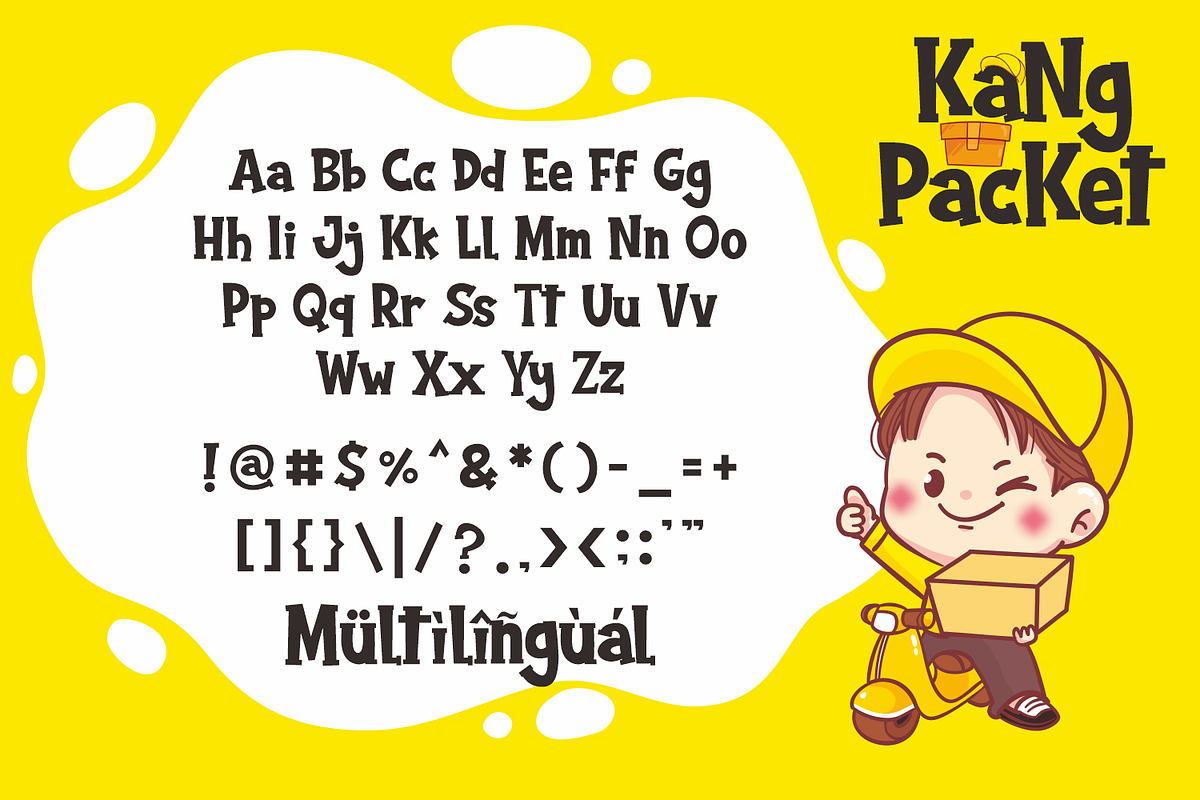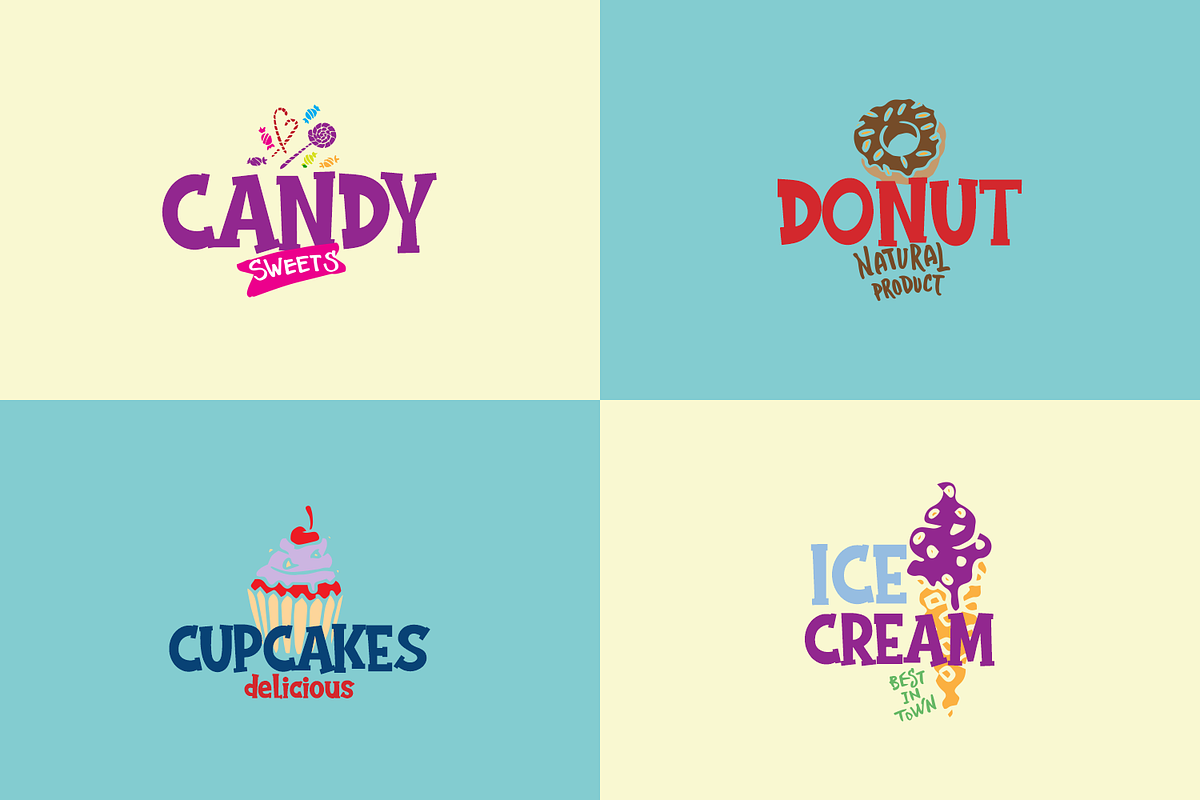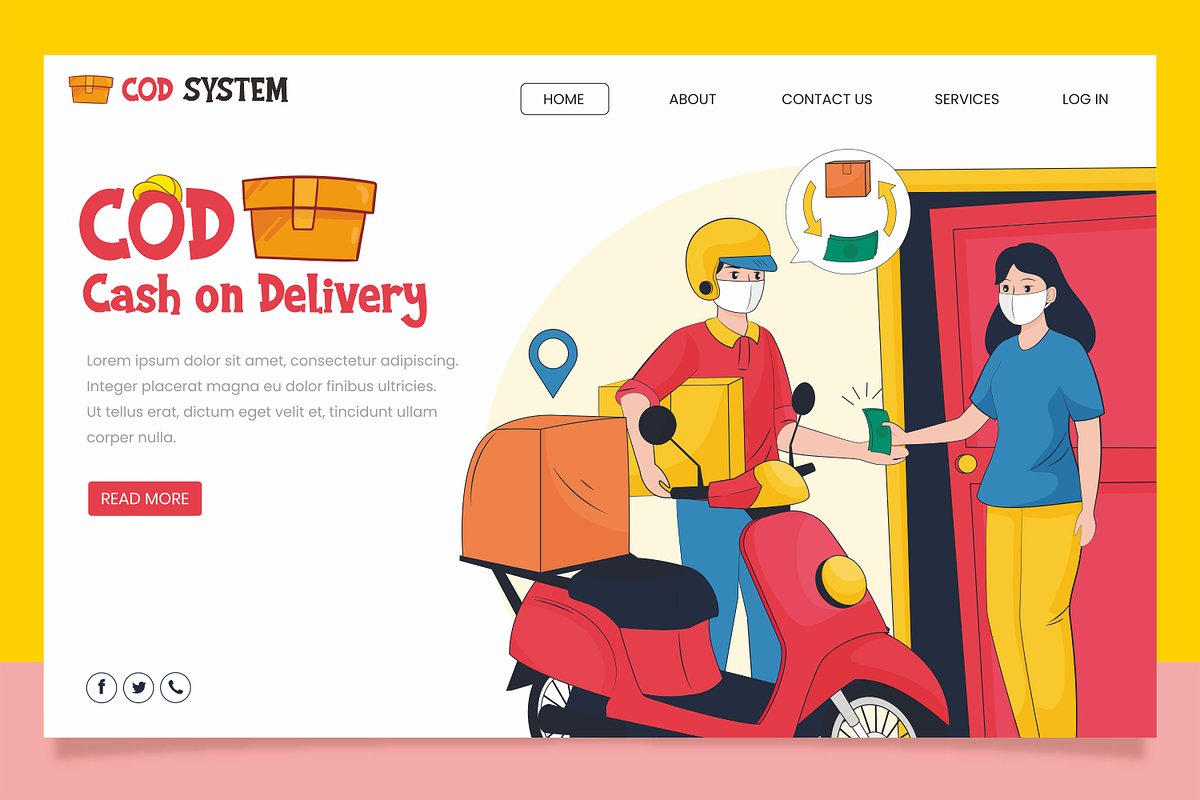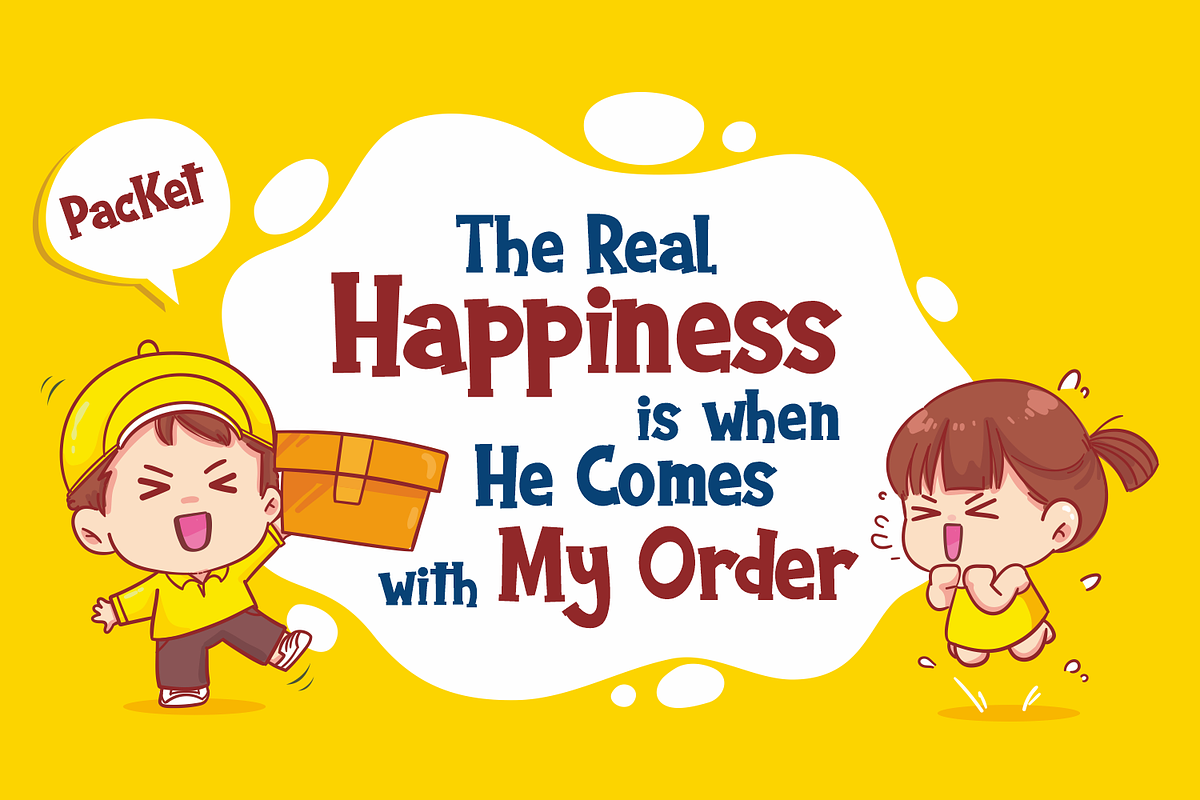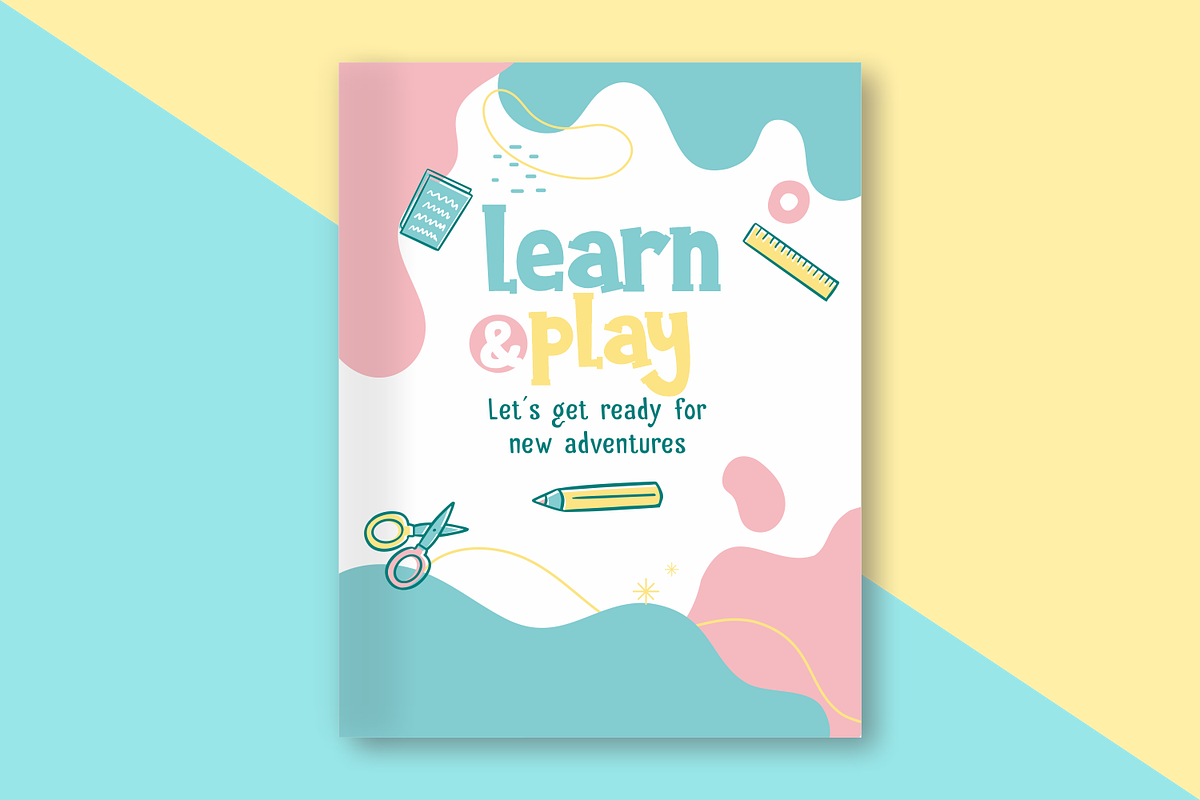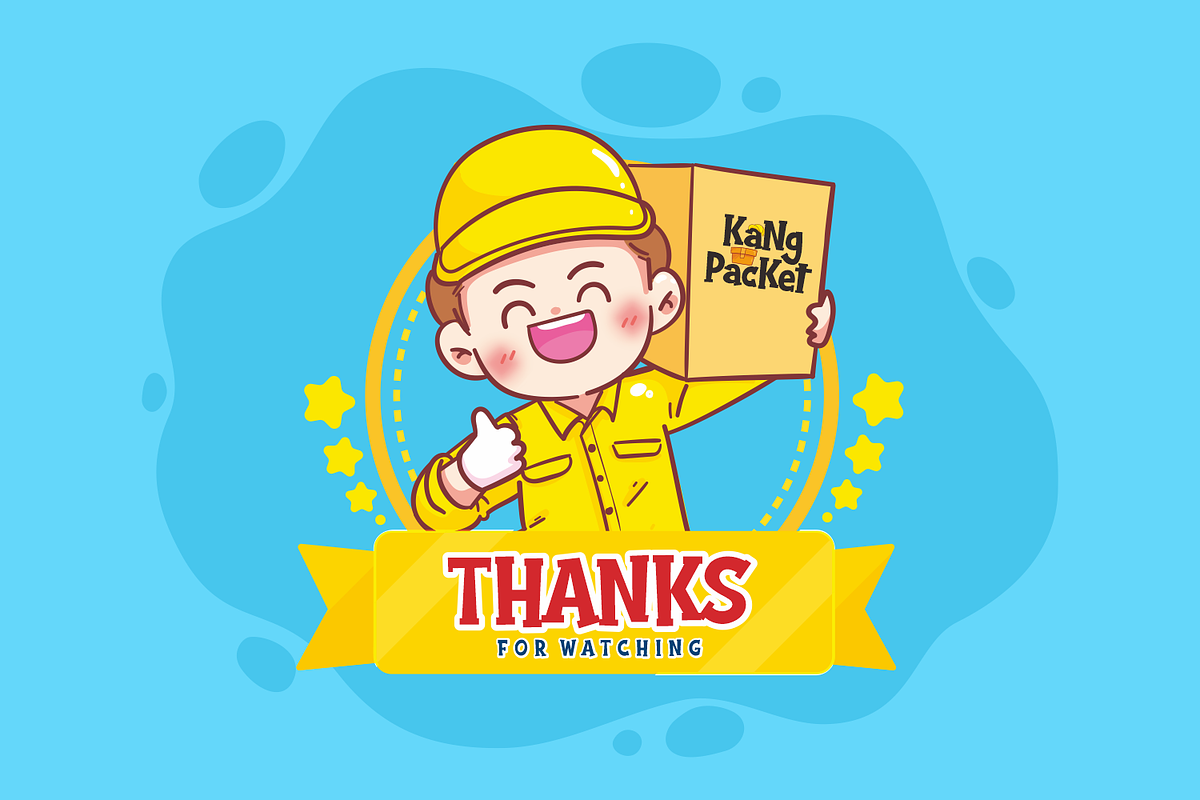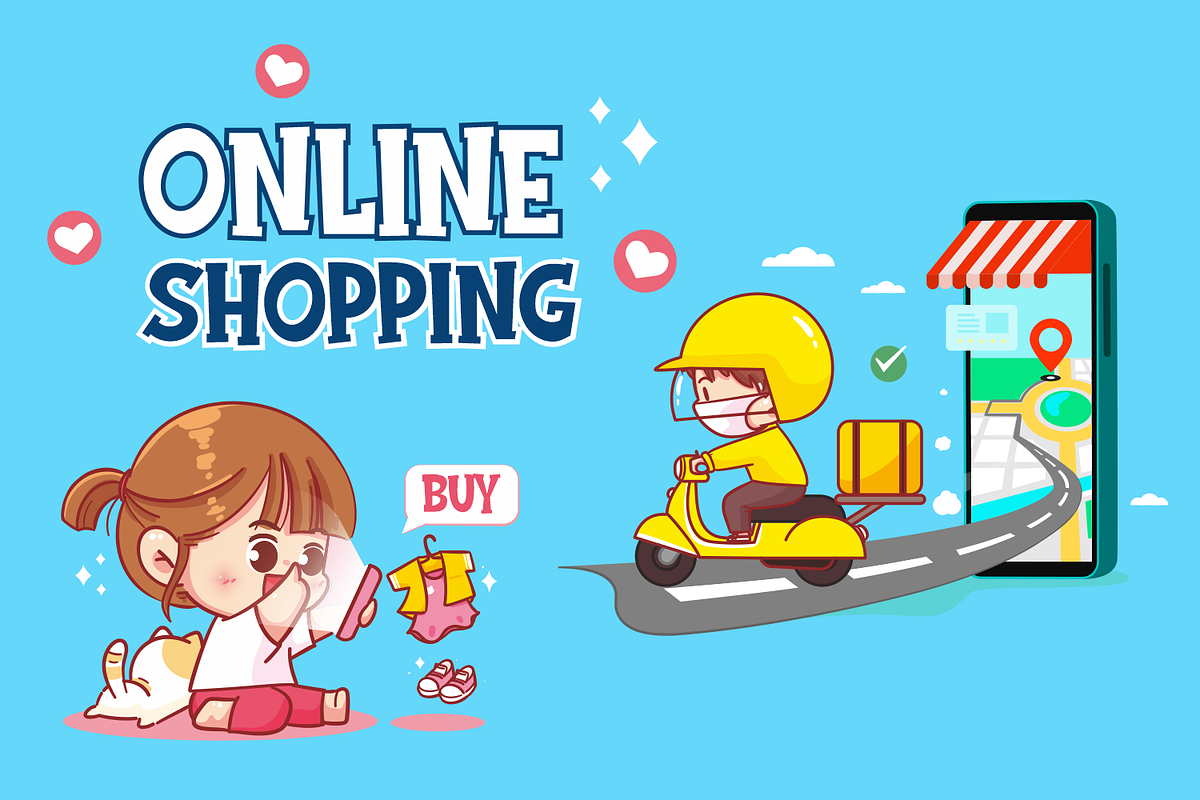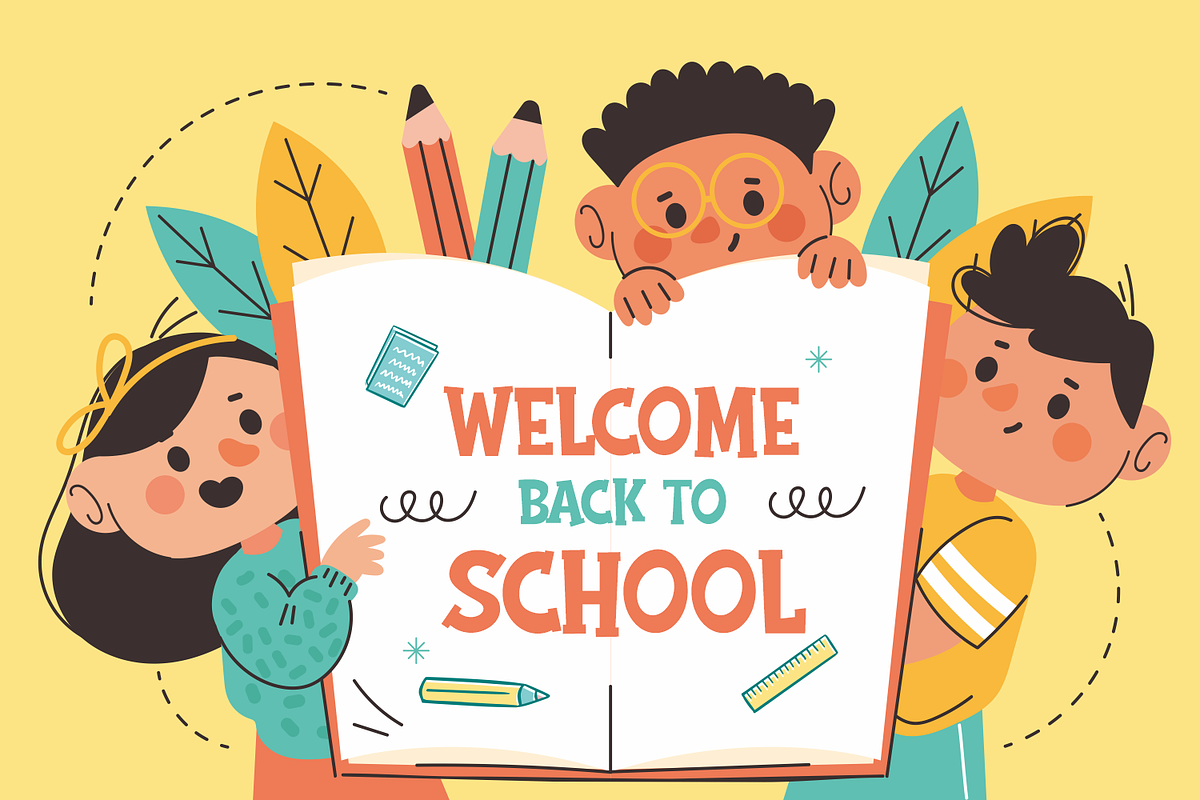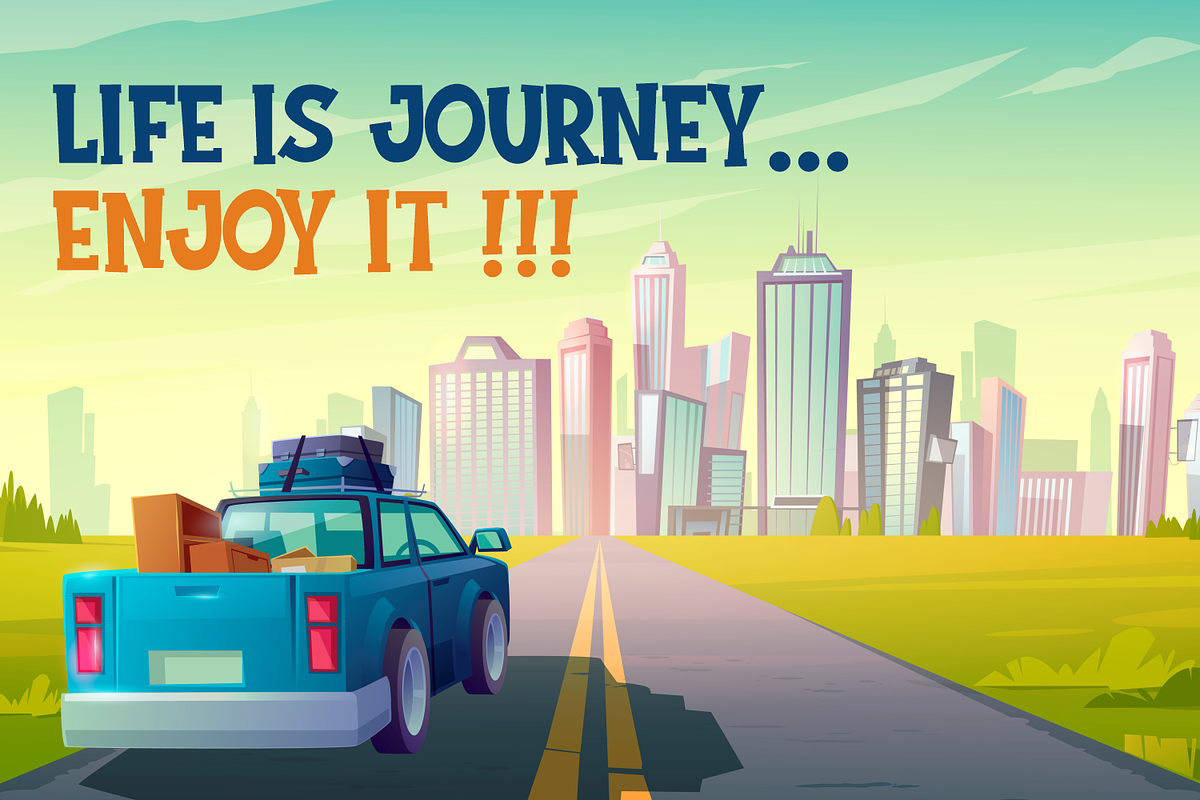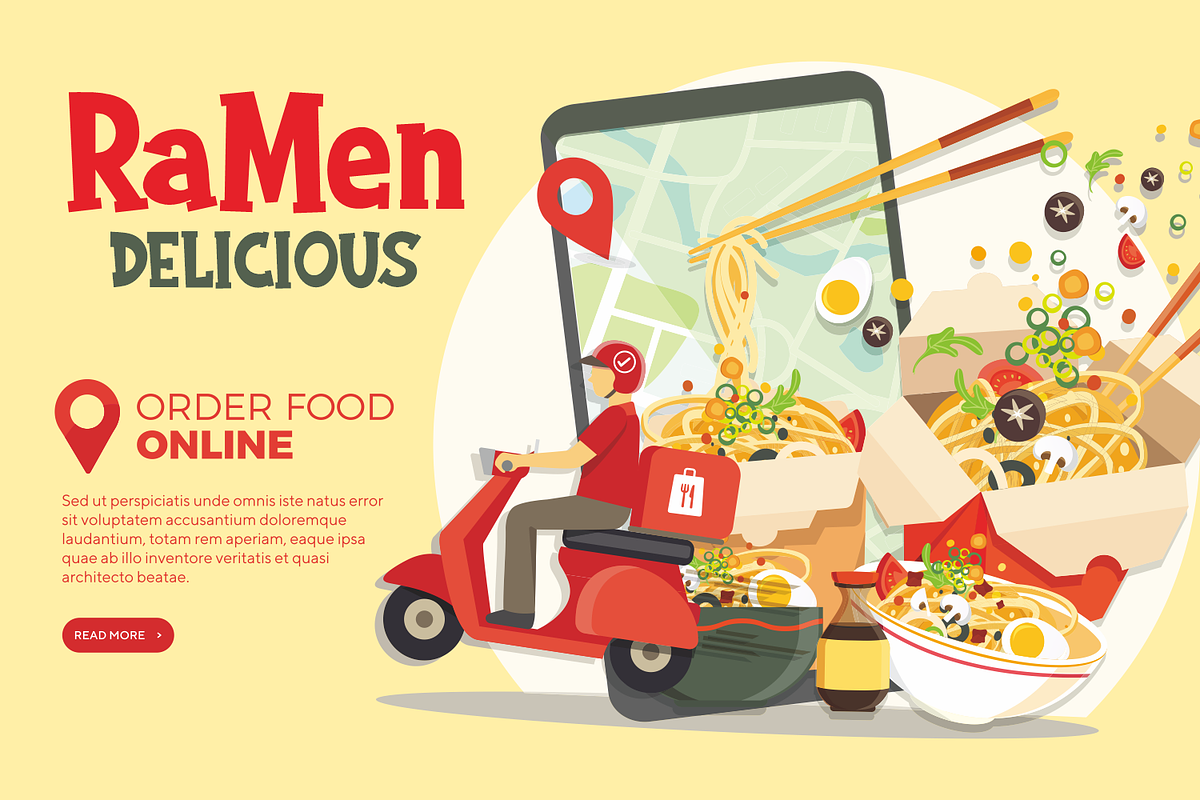
KaNg PacKet
KaNg PacKet is a funny and cute display font, KaNg PacKet is the perfect font for adding a cute and playful touch to your designs and make it very suitable for various purposes such as quotes, t-shirt designs, flyers, youtube channels, labels, logos etc.
- Multilanguage Support